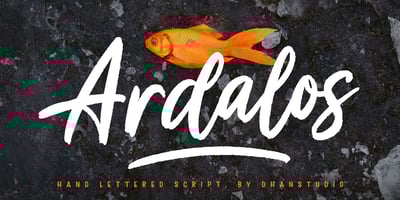
Ardalos
Ardalos font
Ardalos Font Family was designed by Mauli Zari and published by Dhan Studio. Ardalos contains 2 styles and family package options. Ardalos is a modern brush font, a contemporary approach to design, rather having a slight texture on the edges of the letters and this font also has an underline that makes your design more attractive.Suitable for use in title designs such as clothing, invitations, booklets, stationery designs, quotes, branding, logos, greeting cards, t-shirts, packaging designs, posters and more.